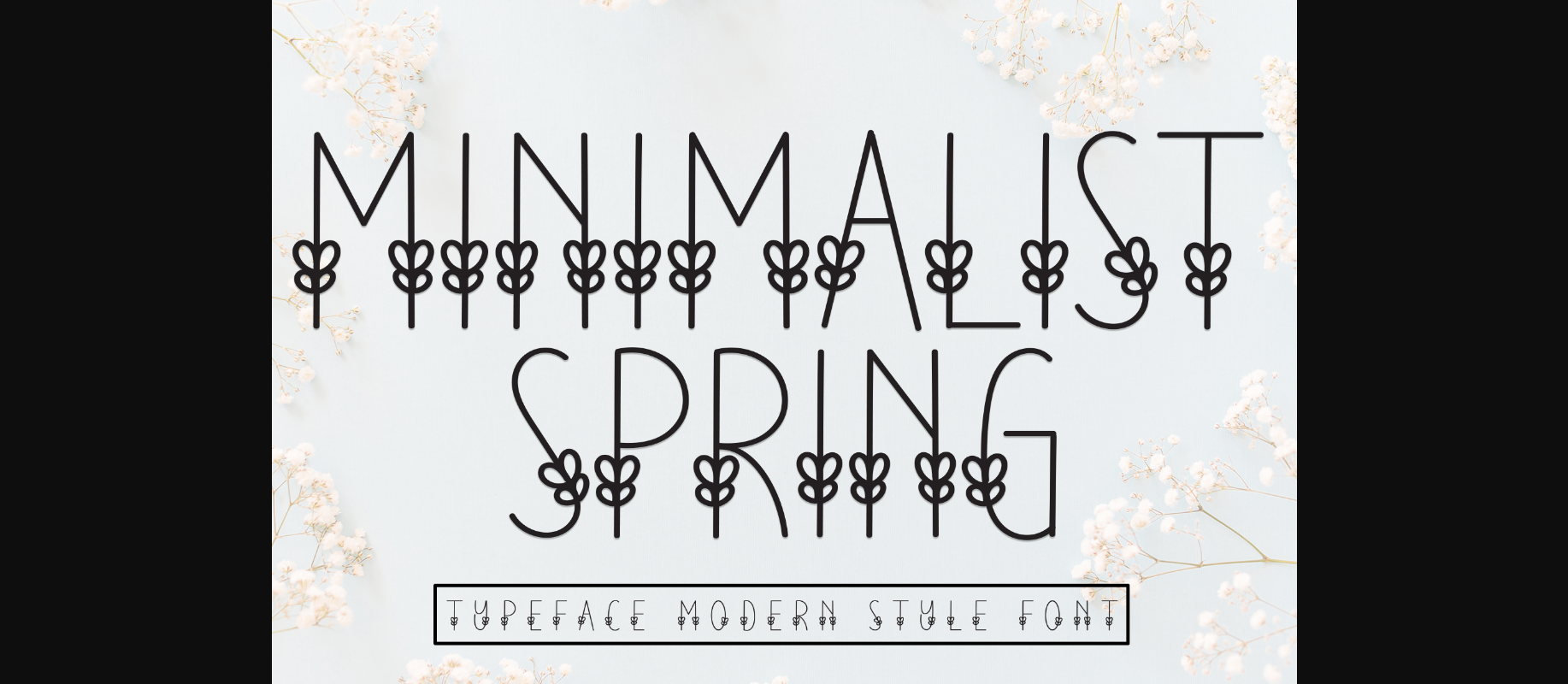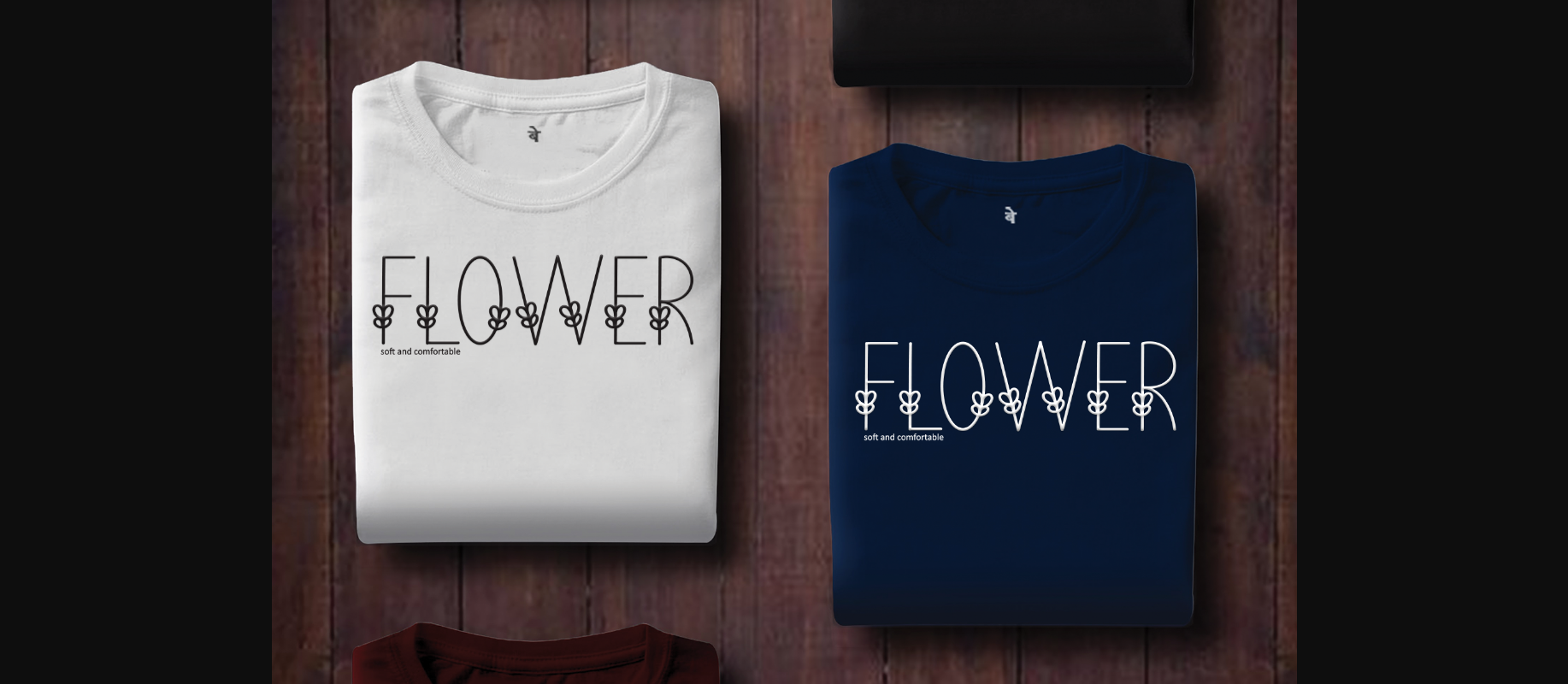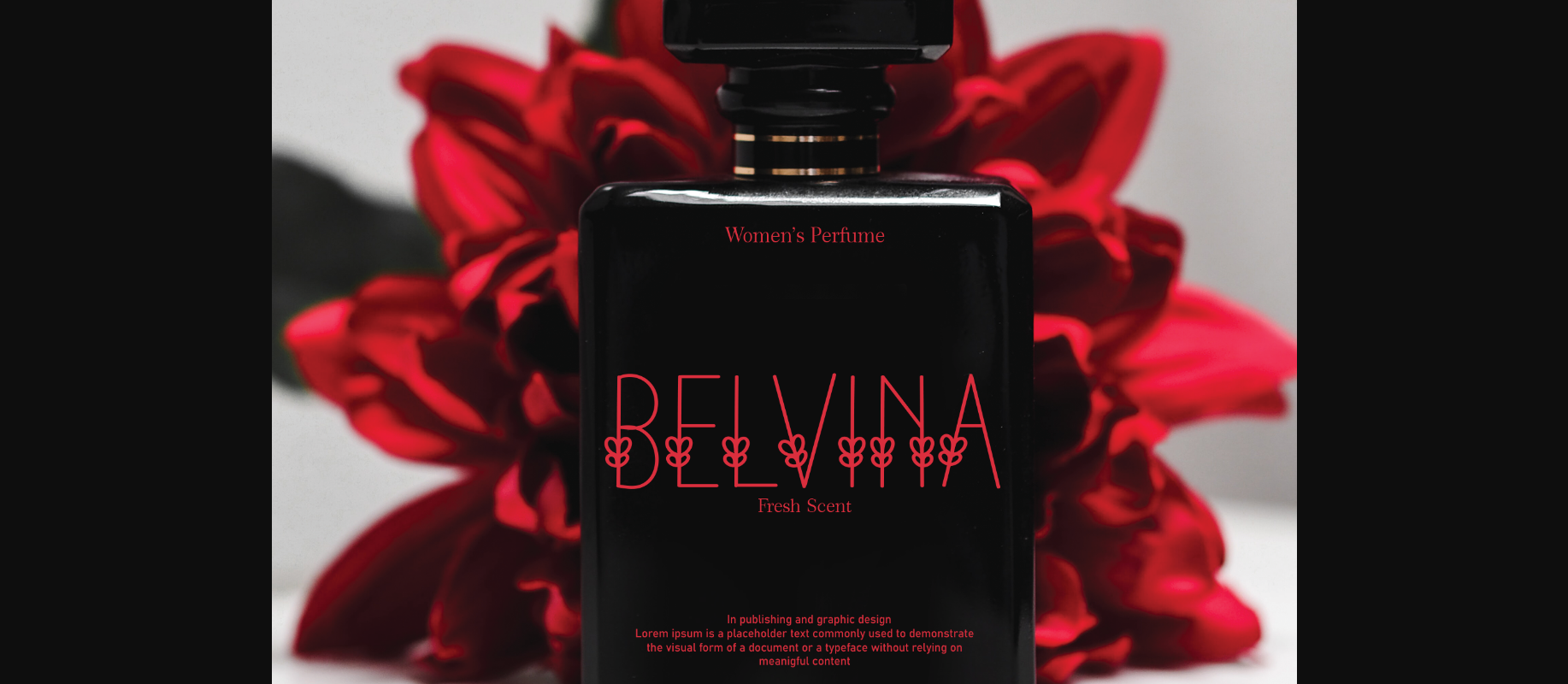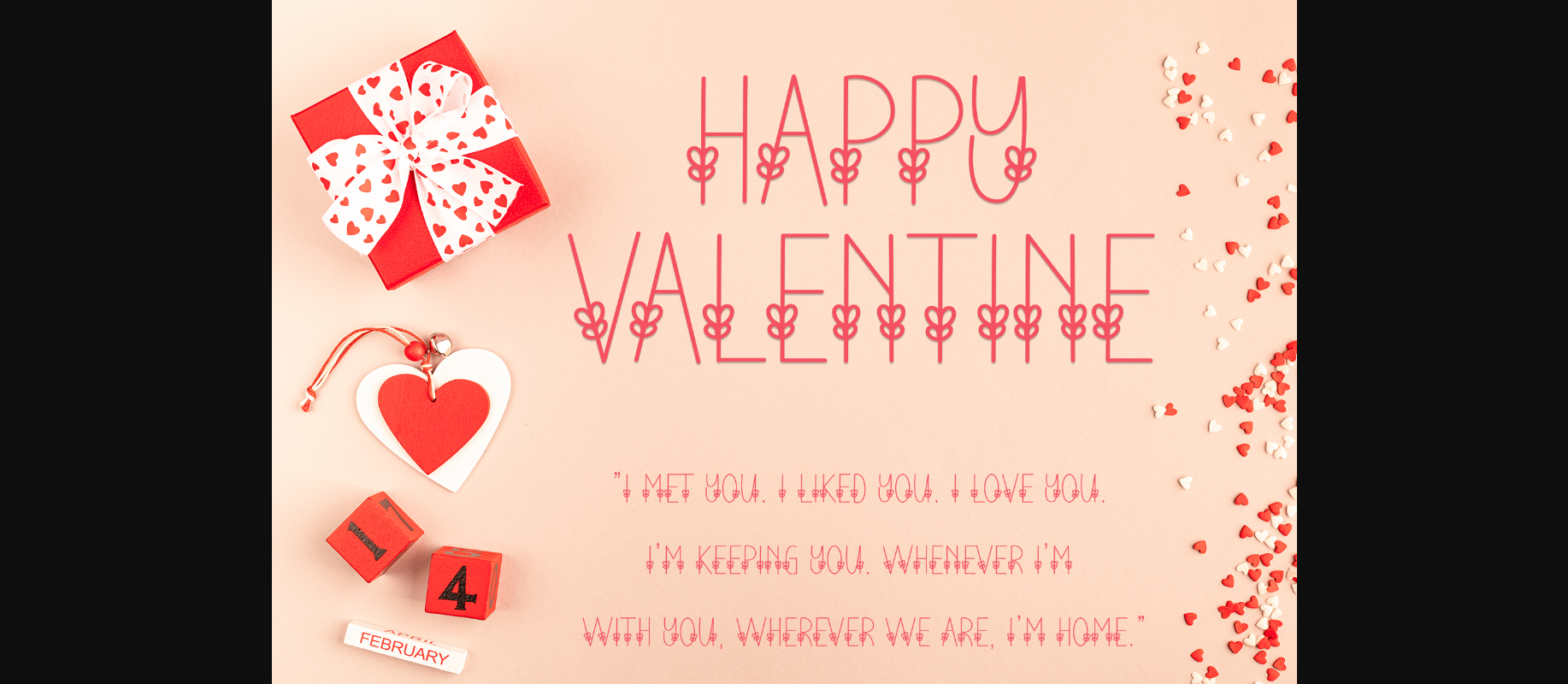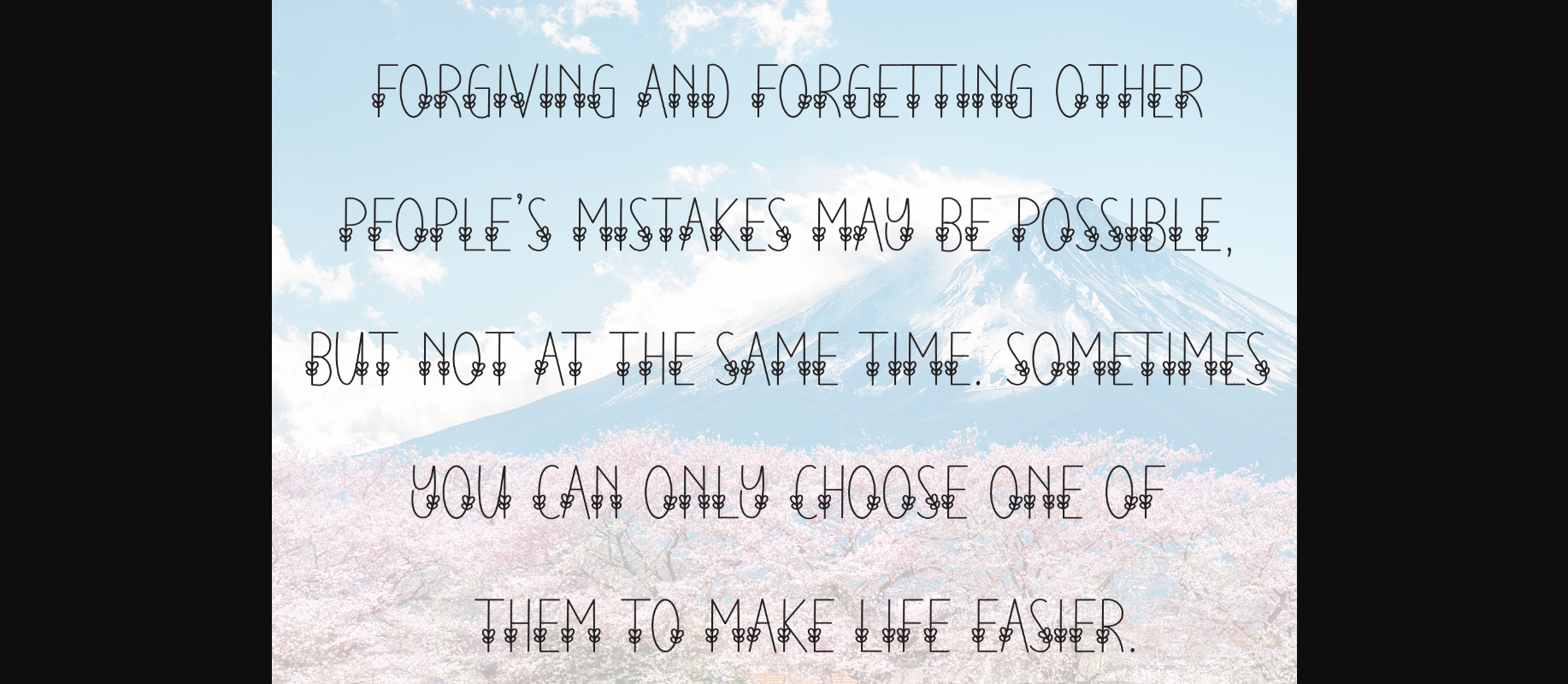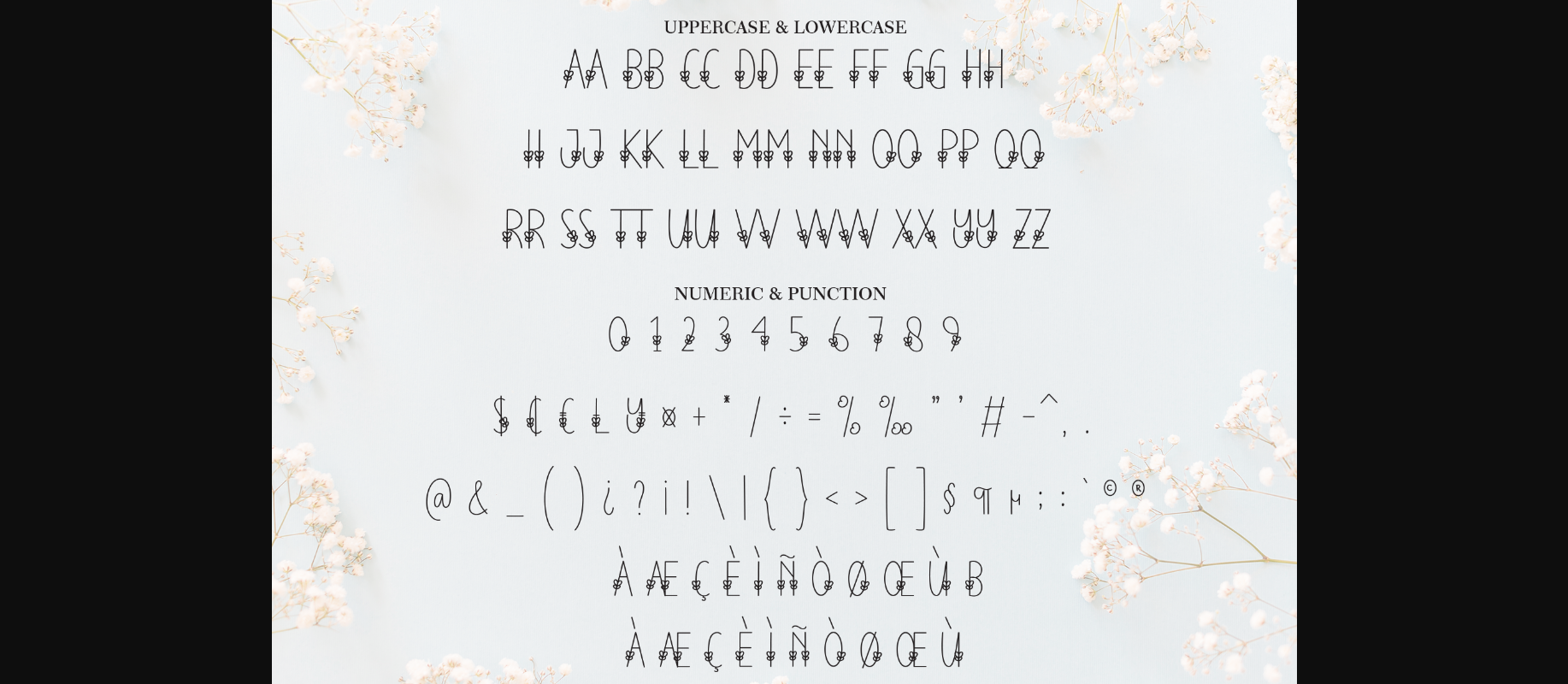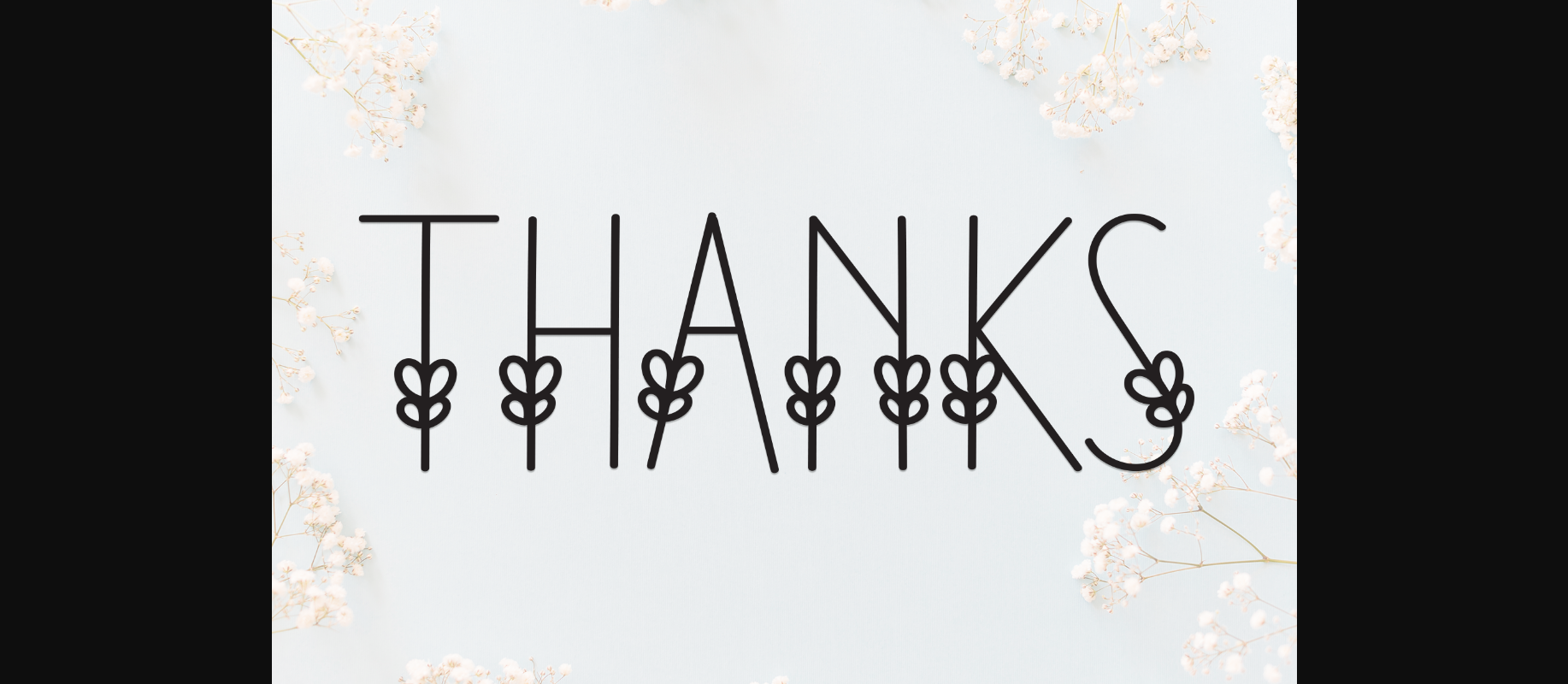
Minimalist Spring is a sweet and friendly handwritten decorative font. Fresh and neat, this font is ideal for writing wedding invitations, cards, or any other design that might need a fun touch!